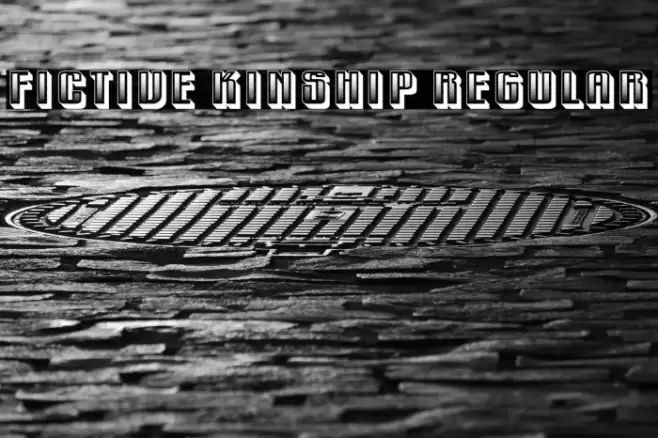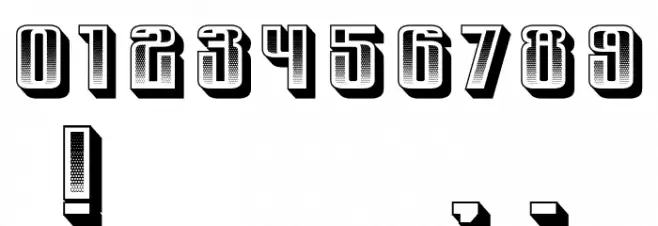
Fictive Kinship Regular Font
Fictive Kinship Regular Description
This font features a bold, three-dimensional design with a strong shadow effect that gives it a striking, impactful appearance. The letters are uppercase with a geometric structure, and the inner detailing includes a dotted pattern that adds texture and depth. The numbers and special characters follow the same style, ensuring consistency across all elements. This font is ideal for making a statement, with its bold presence and unique design elements that draw attention.
A bold, three-dimensional font with dotted inner detailing and strong shadow effects from Uncategorized fonts.
- Proposed Projects: Ideal for posters, headlines, logos, and any design project that requires a bold, eye-catching font.